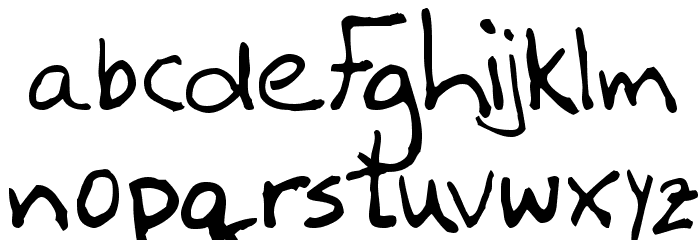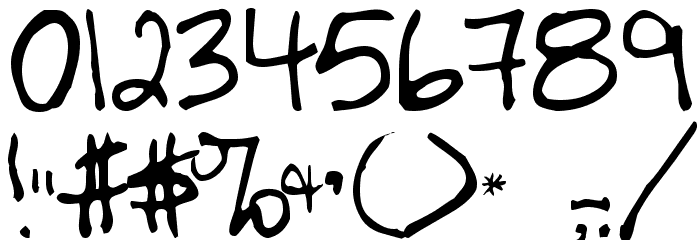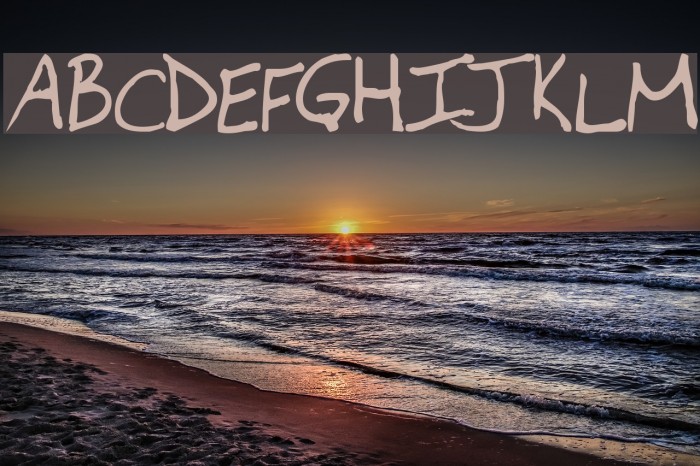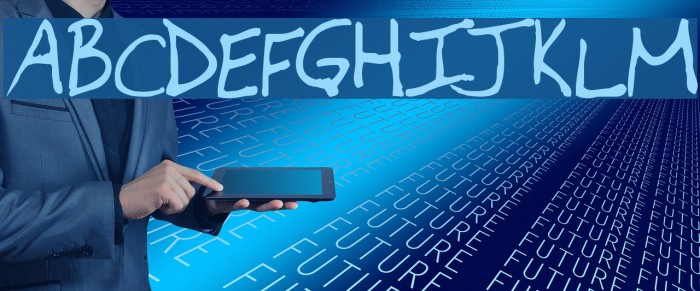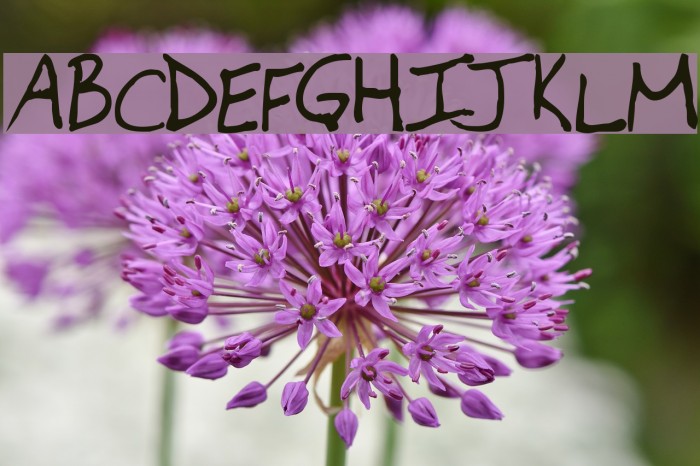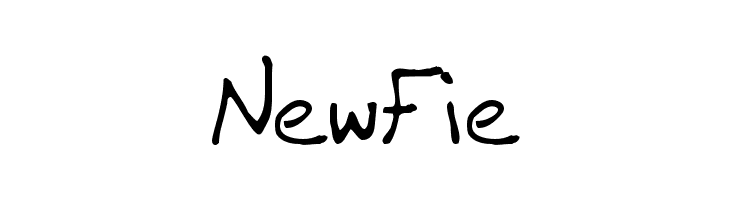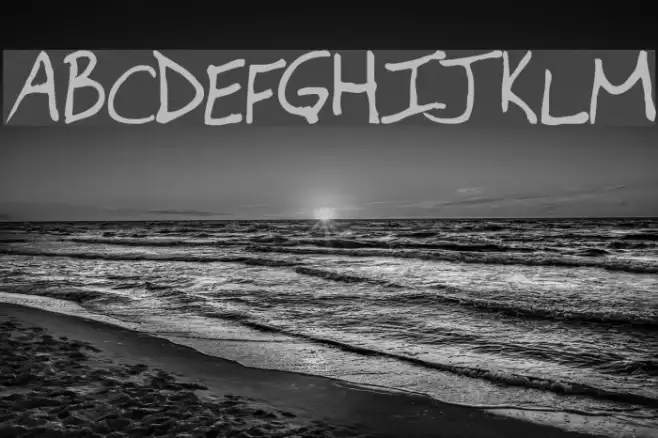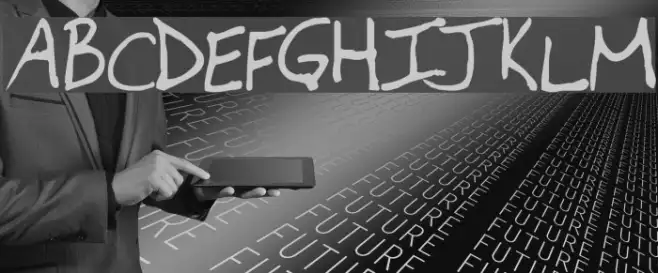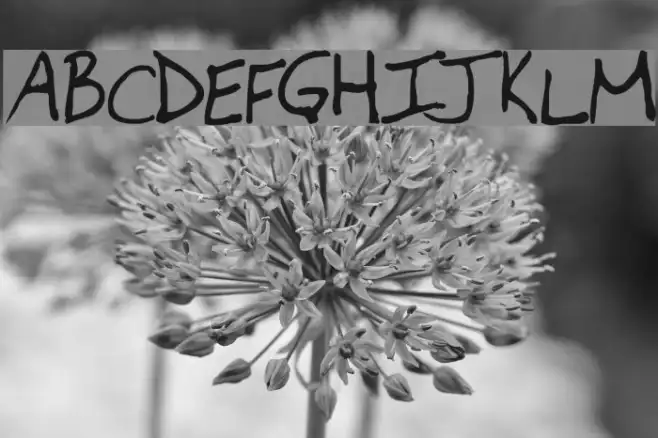
Newfie Font
This font exudes a playful and casual handwritten style, characterized by its uneven strokes and organic flow. The letters vary in size and angle, giving it a dynamic and lively appearance. The uppercase letters are bold and slightly irregular, while the lowercase letters maintain a consistent yet informal look. The numbers are quirky and distinct, adding to the font's charm. Special characters are creatively styled, enhancing the overall whimsical feel. This font is perfect for projects that require a personal touch or a fun, informal vibe.
A playful, casual handwritten font with uneven strokes and dynamic flow.
- Proposed Projects: Ideal for greeting cards, children's books, playful branding, and informal invitations.
- Overall Style: Casual, Playful
- Use Case: Headlines, Informal text, Creative projects